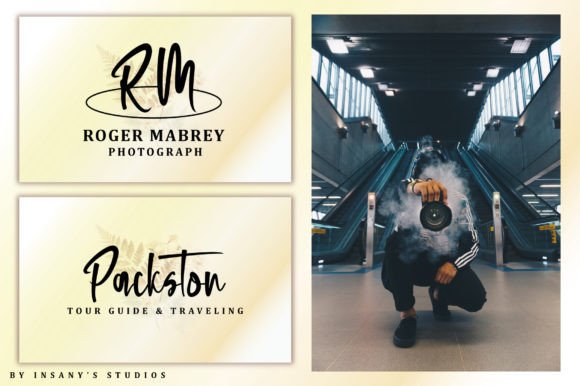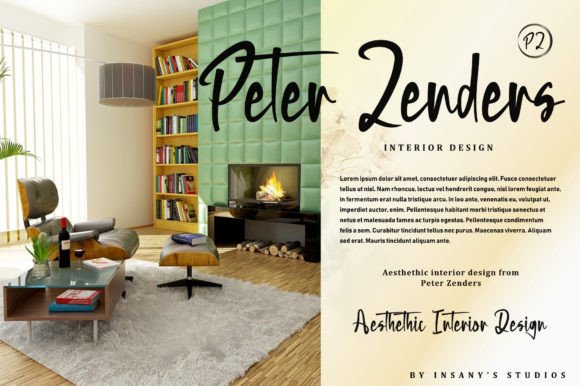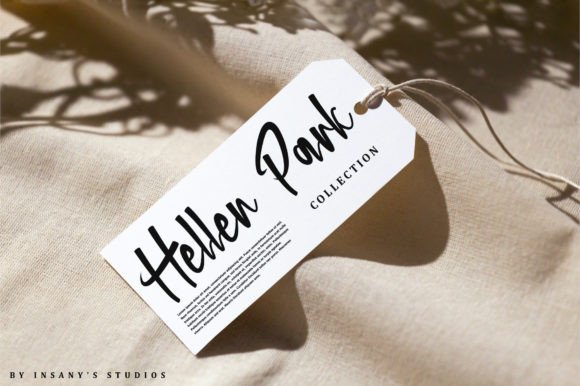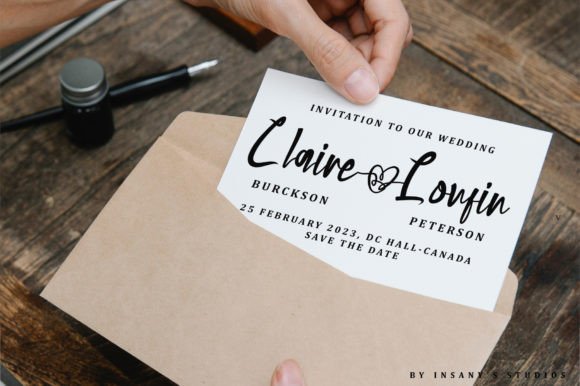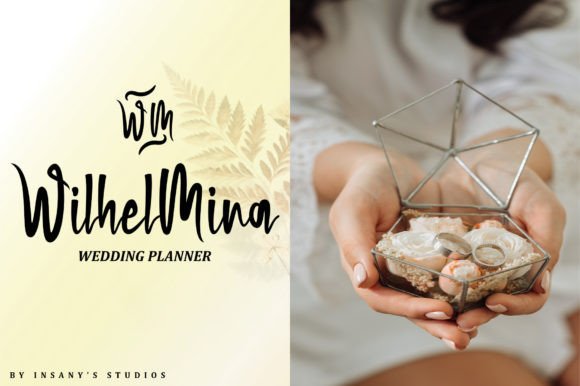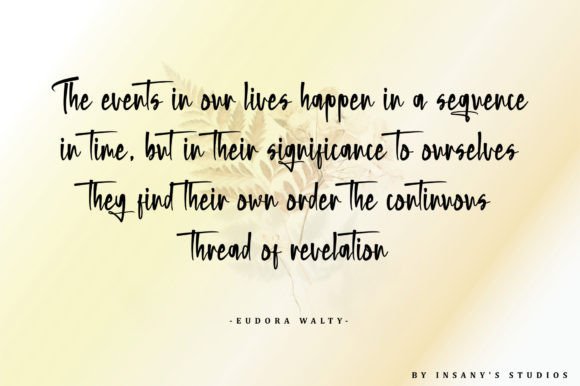
Introduction to Signemare Font Font
Fonts play a crucial role in design, and the Signemare Font font is a typeface that brings both character and versatility to any project. Whether you’re working on a branding project, a website, or a print design, the Signemare Font font offers a unique style that can elevate your work.
Signemare is a modern and stylish handwritten font, described by an elegant and trendy touch.
This font was designed to enhance the beauty of your projects Signemare is PUA encoded, which means you can access all of the glyphs, ligatures and alternates.
Key Features of Signemare Font Font
Why Choose Signemare Font Font?
The Signemare Font font is more than just a typeface – it’s a design tool that helps you communicate your message with style and clarity. Its unique character set and versatile design make it suitable for a wide range of applications, from elegant invitations to bold headlines.
With its carefully crafted letterforms and balanced proportions, the Signemare Font font ensures readability and visual appeal across all mediums.
What makes Signemare Font font special?
The Signemare Font font stands out with its unique design, exceptional readability, and versatility across various design applications.